2 Google Fonts Similar to Glober
Glober is a popular sans-serif font that is inspired by other popular classic grotesque typefaces. It has nice softened forms that make it pleasing to read.
After digging through the Google Fonts library, there were many fonts that came close but not an exact match. You probably already know this but most free fonts are never going to be an exact replacement for the more premium fonts.
However, after searching through the fonts available, I was able to narrow it down to two fonts that I believe would make for great alternatives to Glober.
What Google Fonts are Similar to Glober?
The most similar looking Google Fonts to Glober are:
- Open Sans
- Public Sans
Either one of these would make for a great alternative. Keep reading on as I discuss what they have in common and some of their differences.
Open Sans
Open Sans is a very popular sans-serif font available in the Google Fonts library. It does a great job is trying to match Glober.
Right off the bat, you will see that it does a good job in trying to imitate the lowercase letters including the unique lowercase "g".
The lowercase is very close with some minor differences. For example the dots in the "i" and "j" are more square in Glober versus circles in Open Sans.
The uppercase is also very similar, but it does have a few differences. The main difference is that majority of the letters in Glober are more narrow than in Open Sans. However, most of the letter formation is the same.
Compare below.
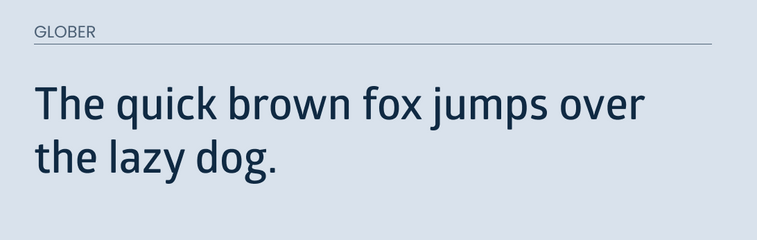
Public Sans
Public Sans is a great looking sans-serif that is available on the Google Fonts library. It does a great job in matching both the uppercase and lowercase of Glober.
If you pay close attention, you will see that it is about a 90% match with lowercase letters. There are some minor differences between the "f" and "l". Otherwise they are very similar.
The uppercase is also pretty similar.
Final thoughts
Either Public Sans or Open Sans would make for a great alternative to Glober. As usual, neither of these fonts would be an exact match. Instead, they are similar in nature and make for a good replacement for any project on a budget. If you are in a position to do so, then I would recommend purchasing the font itself.